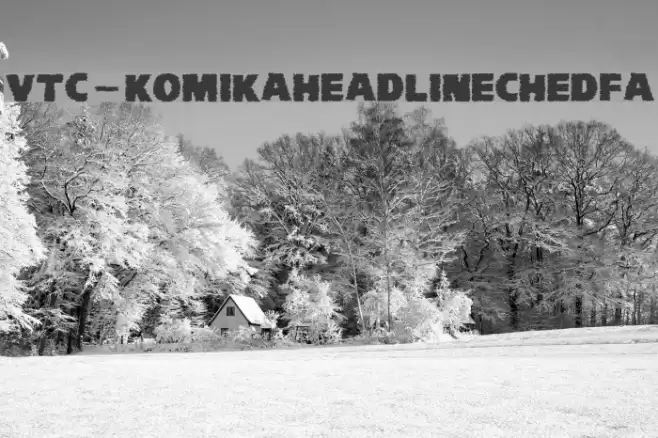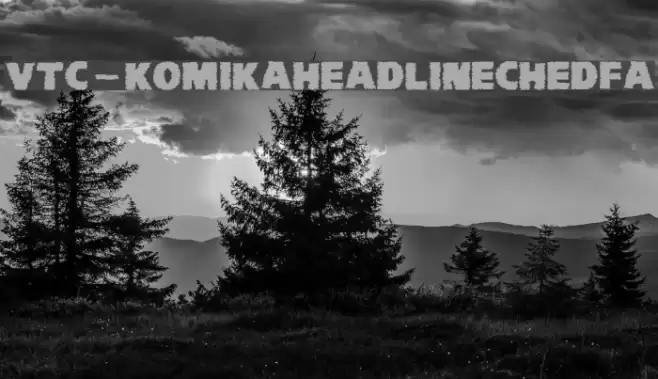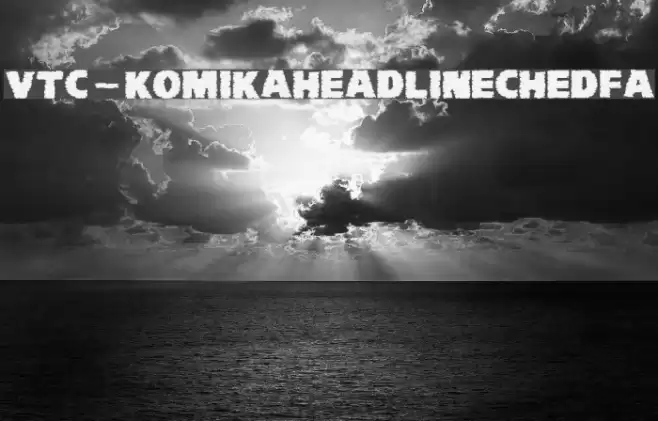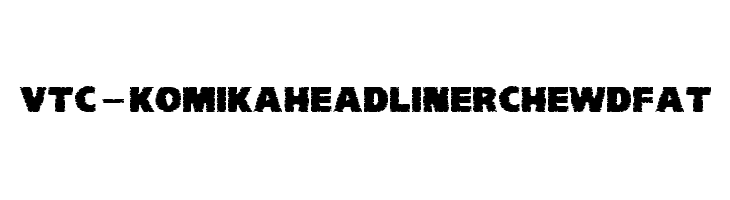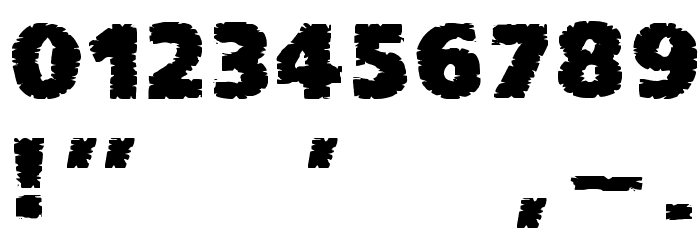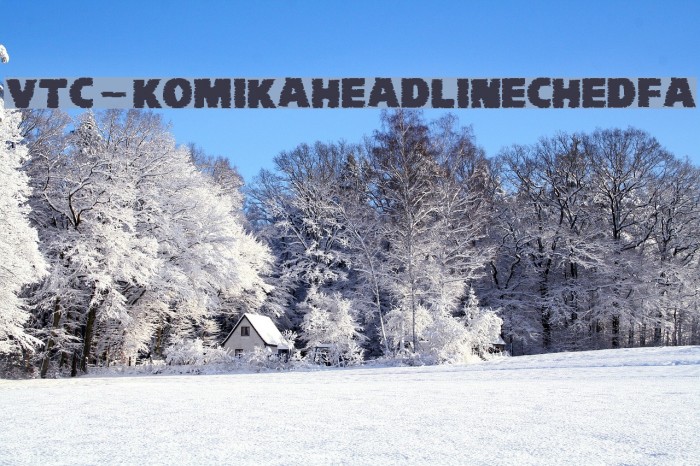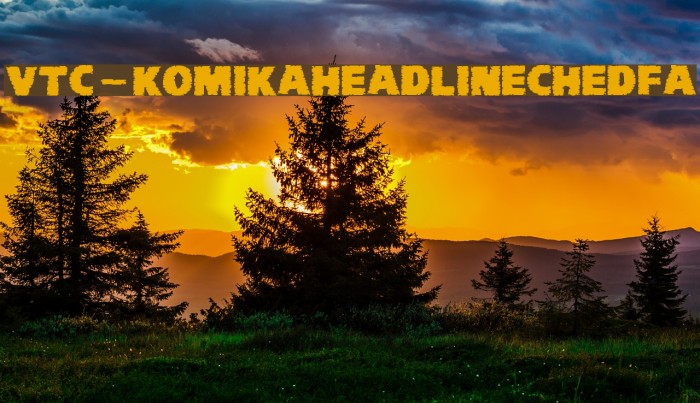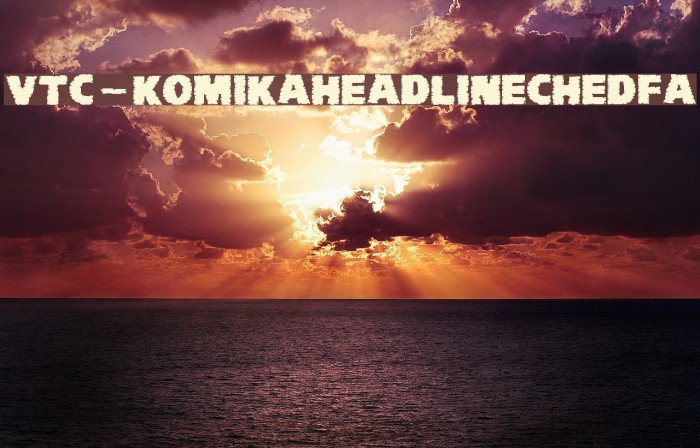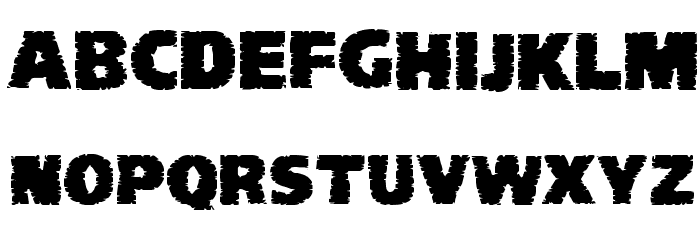
VTC-KomikaHeadLinerChewdFat Font
VTC-KomikaHeadLinerChewdFat Description
This font features a bold and playful design with a distressed, textured appearance that gives it a unique, handcrafted feel. The characters are thick and chunky, with irregular edges that create a sense of movement and energy. The uppercase letters are prominent and attention-grabbing, making them ideal for headlines or titles. The numbers and special characters maintain the same bold, textured style, ensuring consistency across all elements. This font's distinctive look makes it perfect for projects that require a fun, dynamic, and slightly edgy aesthetic.
A bold, textured font with a playful, distressed style from Cartoon fonts.
- Proposed Projects: Ideal for comic books, posters, children's book covers, and playful branding materials.
- Overall Style: Playful, Edgy, Handcrafted